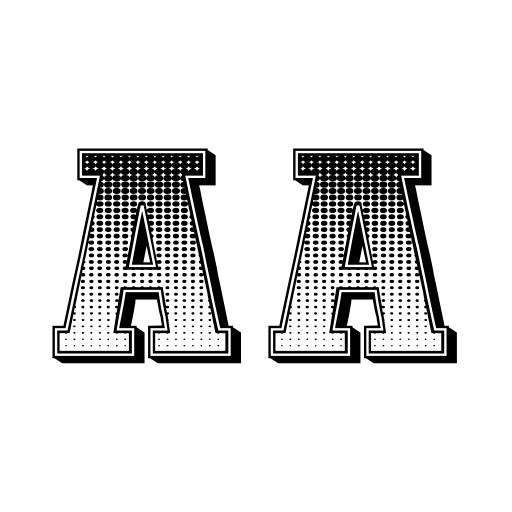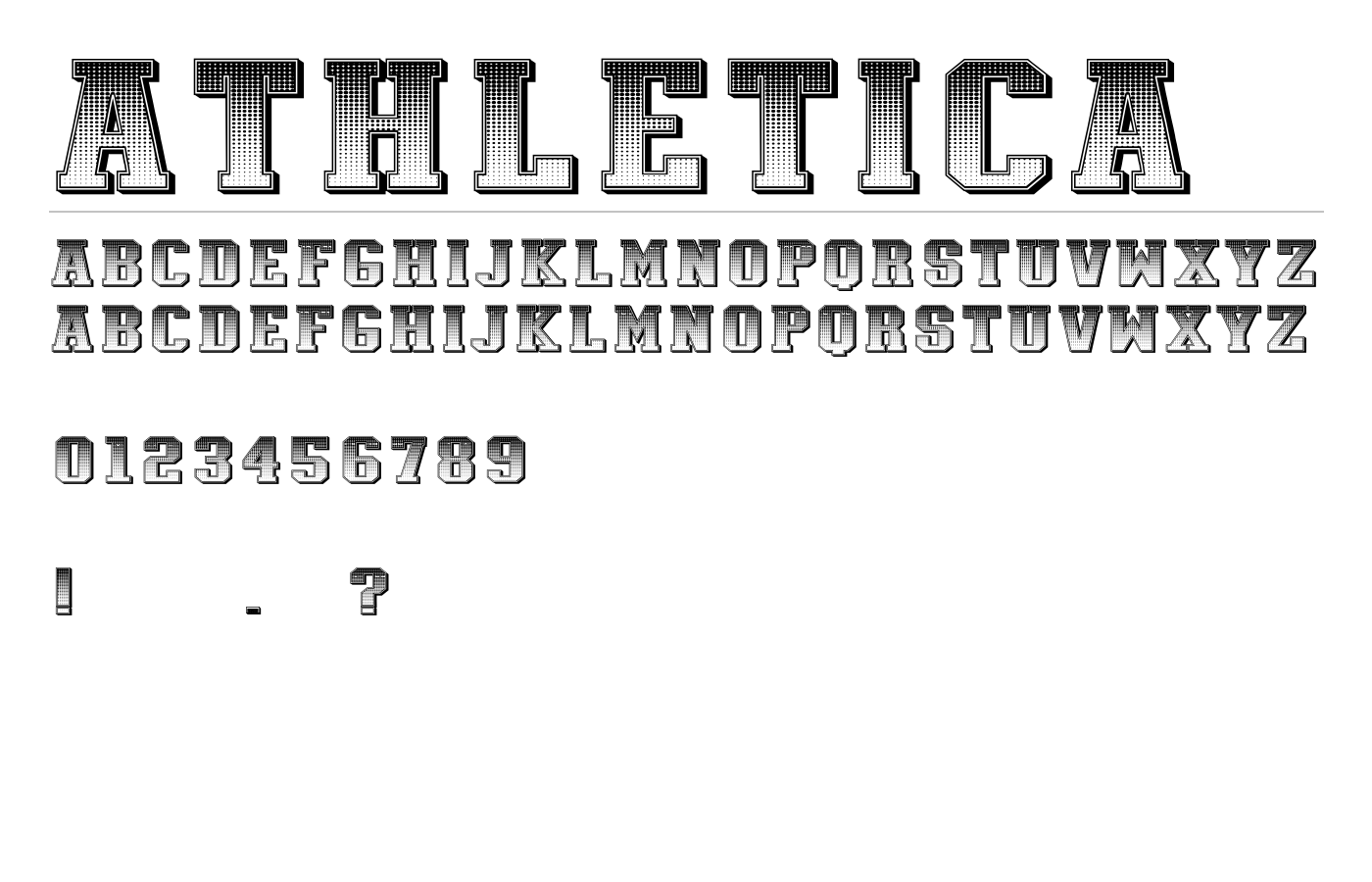
Athletica is a bold slab serif font with a strong, collegiate sports vibe, featuring blocky letterforms with thick, bracketed serifs and subtle shading that adds depth and texture. Its all-caps style and sturdy structure make it perfect for athletic branding, varsity logos, posters, and headlines where a vintage yet dynamic feel is desired. This font stands out by combining classic toughness with decorative details, giving designs a confident and energetic personality.
Athletica Font
About Athletica Font